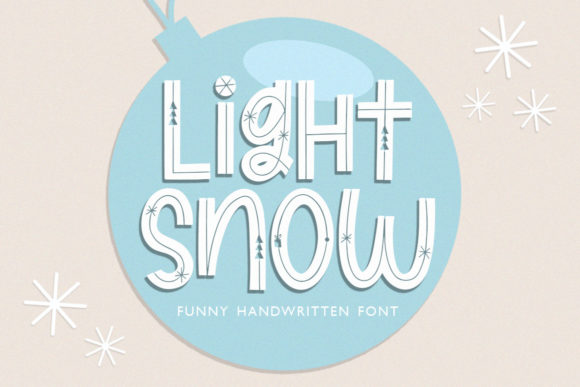
Welcome to the whimsical world of Light Snow Font, a display font family that exudes playfulness, authenticity, and unbridled creativity. This charming font, crafted by the talented Masha Artifex, is a delightful choice for any child-centered project, be it a school assignment, a vibrant poster, or a captivating children's book.
With its soft, hand-drawn curves and playful letterforms, Light Snow Font instantly captures the hearts and imaginations of young readers. The font's meticulously crafted characters dance across the page like a joyful melody, engaging children and drawing them into the realm of storytelling. From whimsical invitations to enchanting greeting cards, Light Snow Font breathes life into words, transforming them into colorful expressions of joy and wonder.
But Light Snow Font's magic extends beyond mere aesthetics. This font family is a teacher's dream, a tool that nurtures creativity and imagination in young minds. Its playful nature encourages children to express themselves freely, whether through writing, drawing, or crafting. With Light Snow Font as their creative companion, children embark on a journey of self-expression, exploring the boundless landscapes of their own imaginations.
For parents and educators, Light Snow Font is a valuable asset, a font that fosters learning and sparks a lifelong love of reading and writing. Its playful charm captivates young minds, making even the most mundane tasks seem like delightful adventures. Whether it's a school project, a homework assignment, or a simple note to a friend, Light Snow Font adds a touch of magic to every written word, transforming the ordinary into the extraordinary.
Light Snow Font is not just a font; it's an experience, a gateway to a world where imagination reigns supreme. It's a font that brings joy to children's hearts, nurtures their creativity, and inspires them to dream big. So, embrace the whimsical wonder of Light Snow Font and let your child's imagination soar!